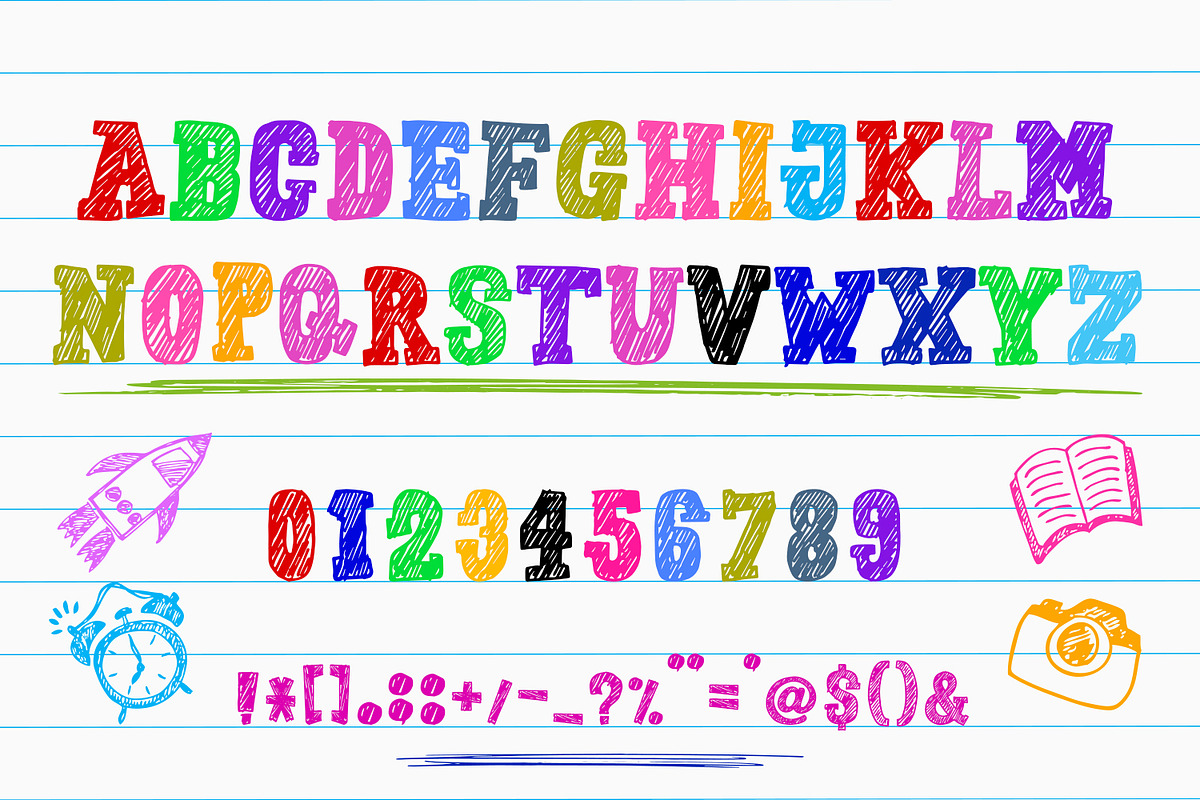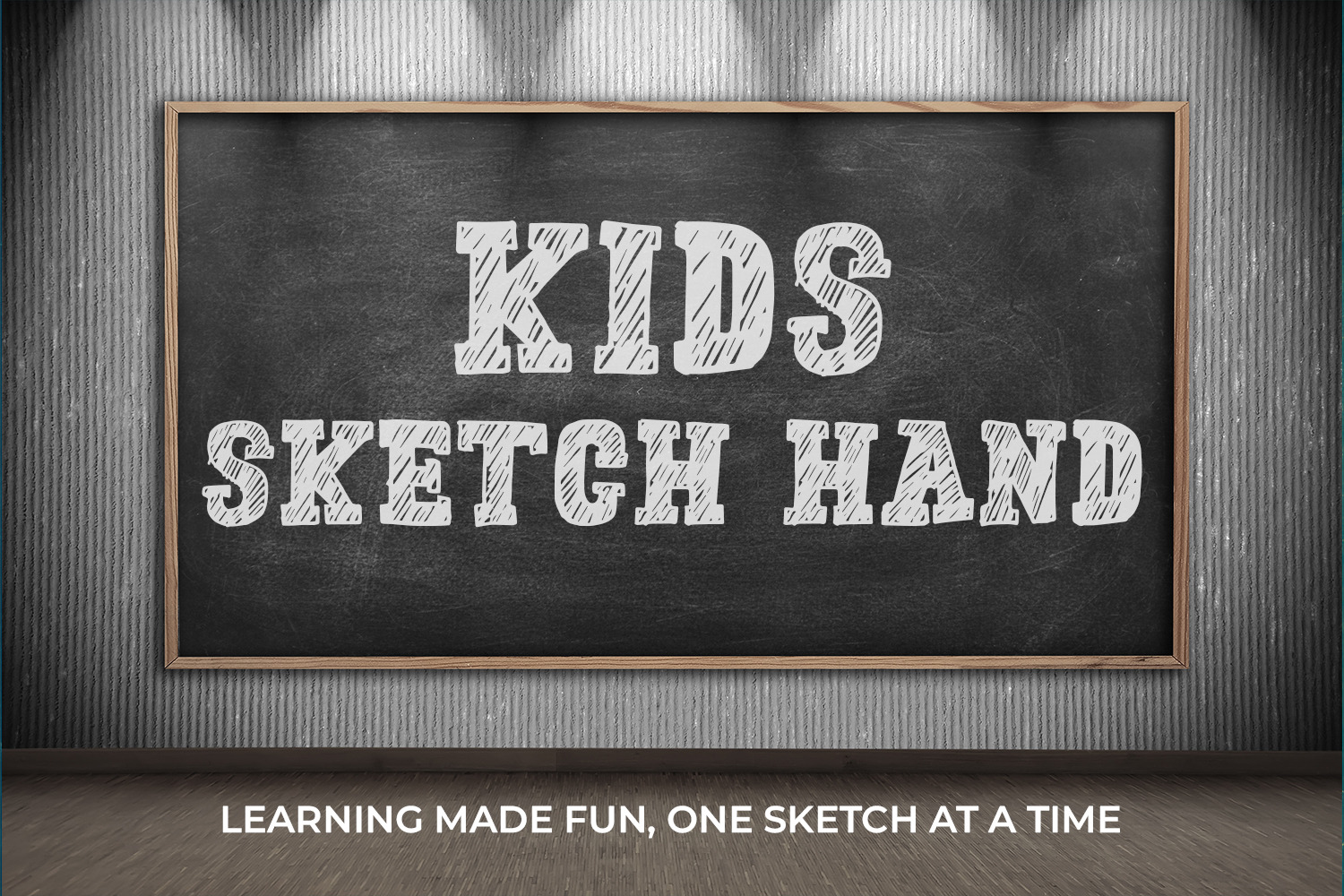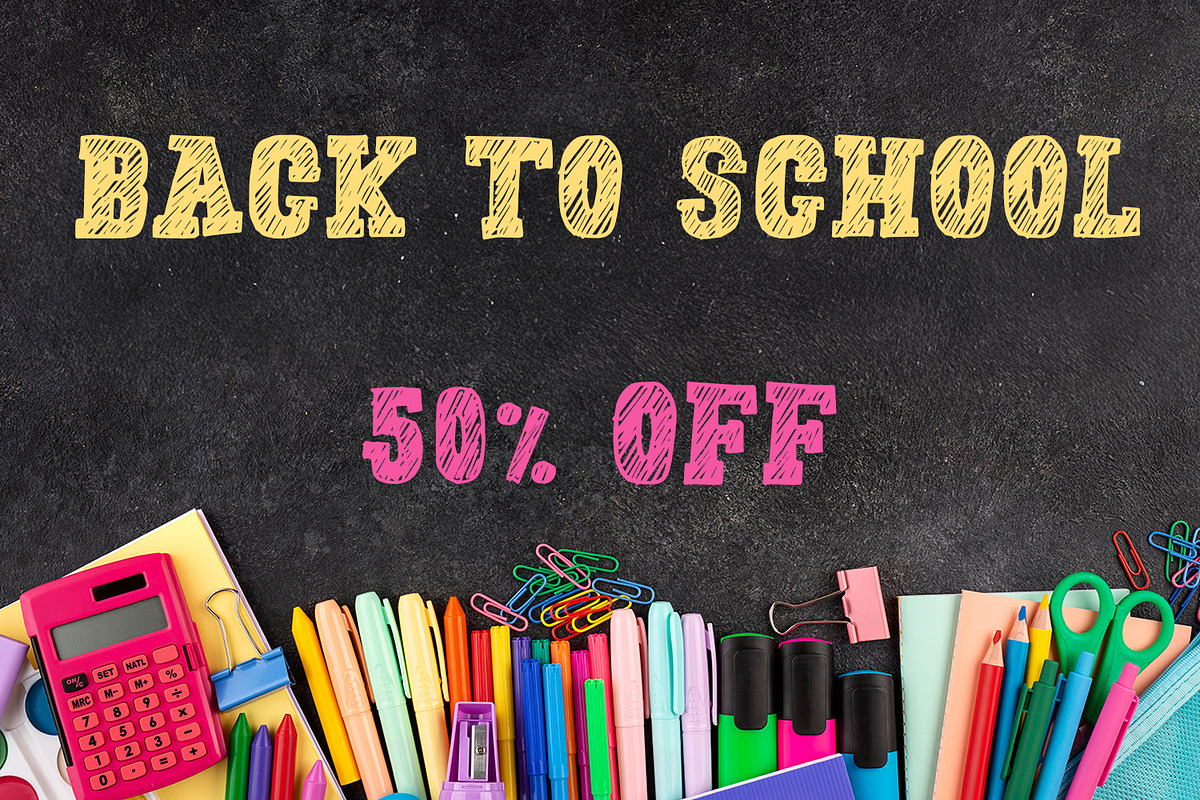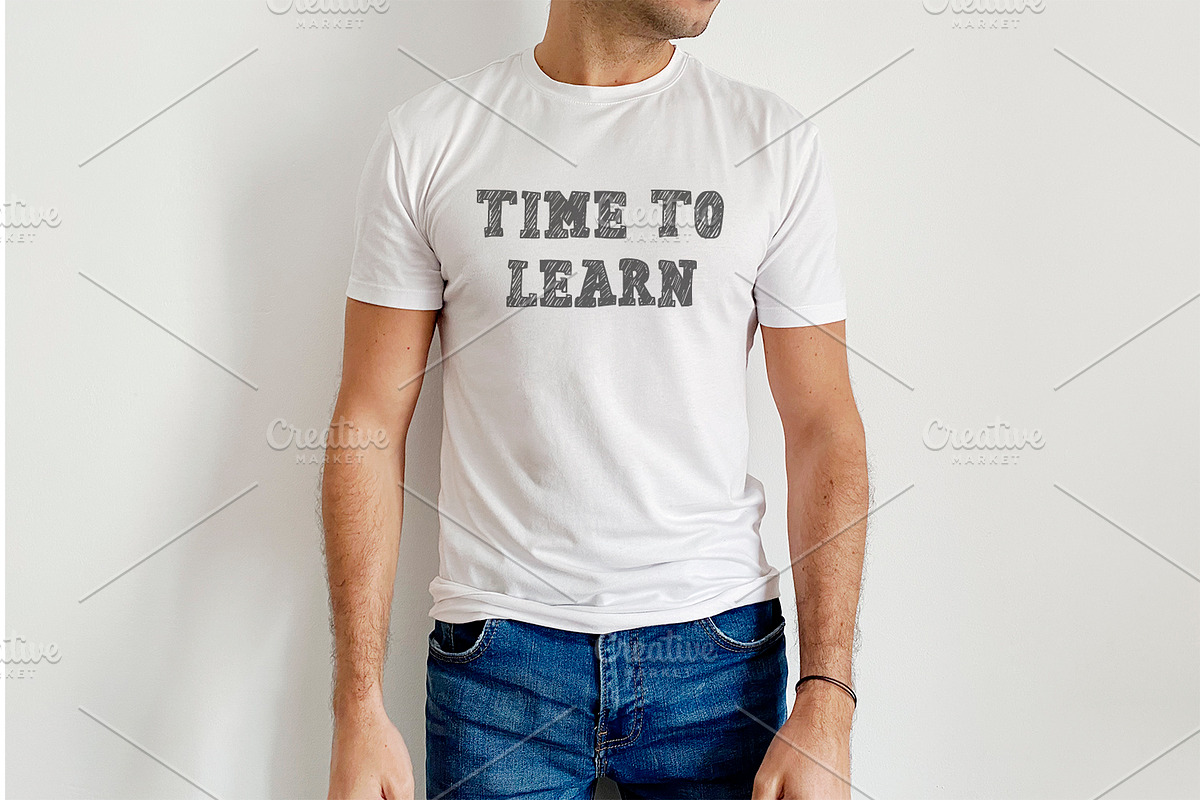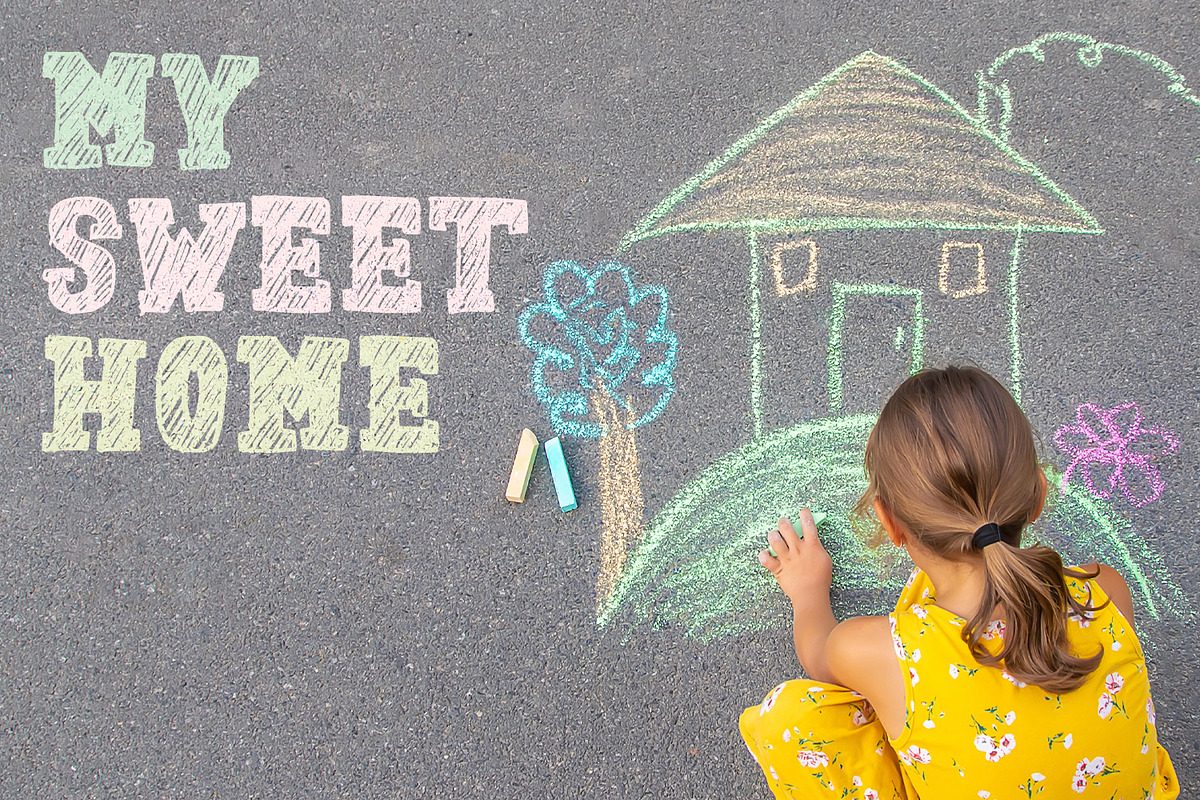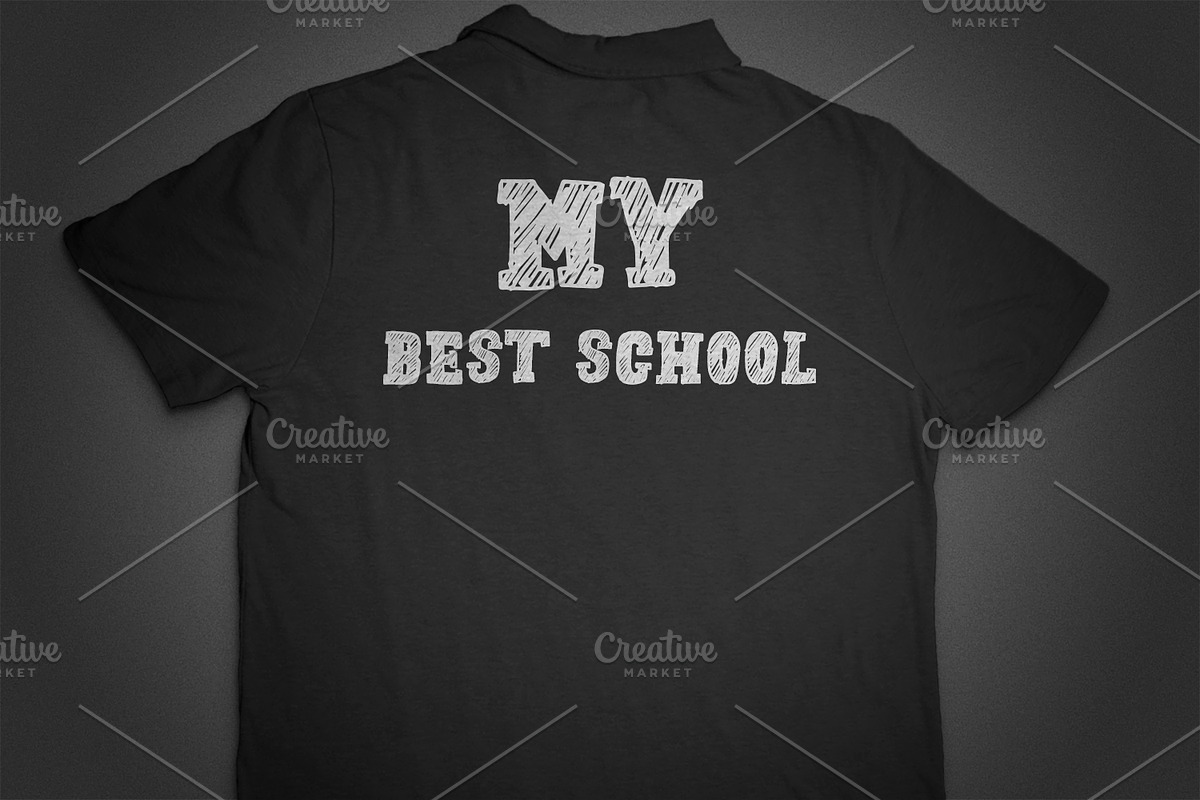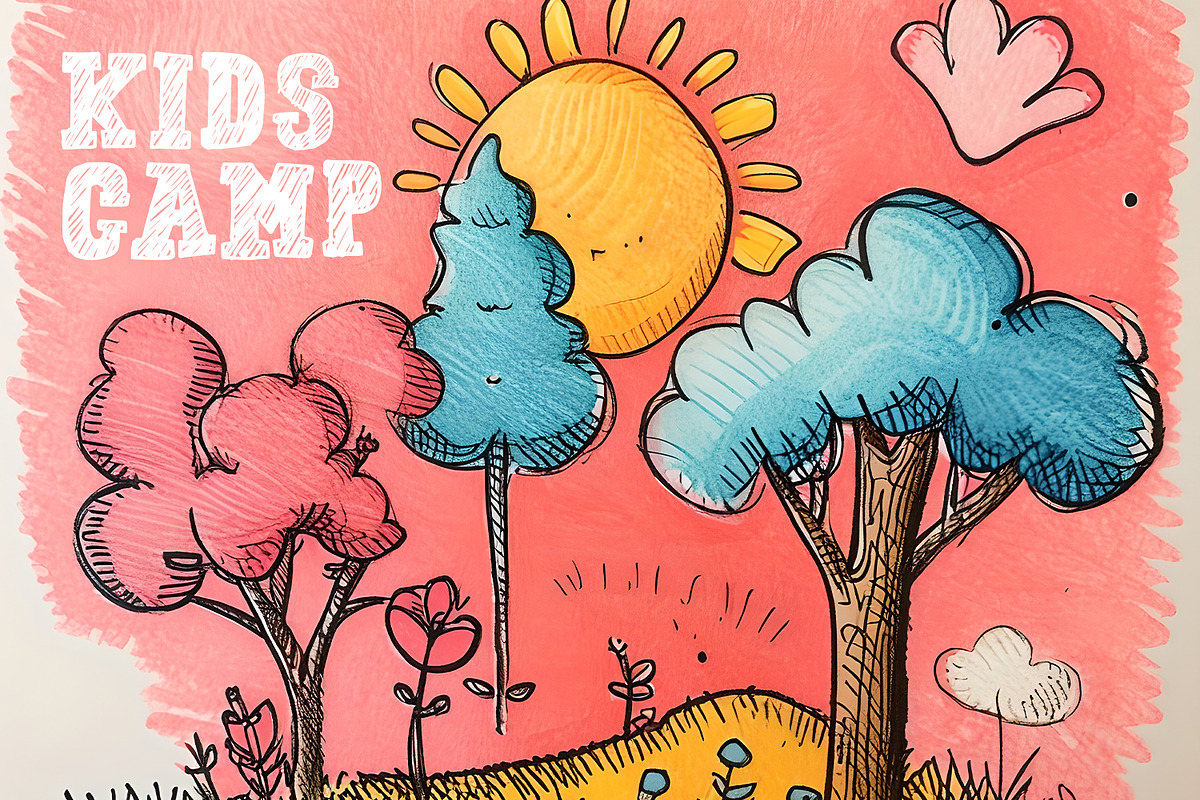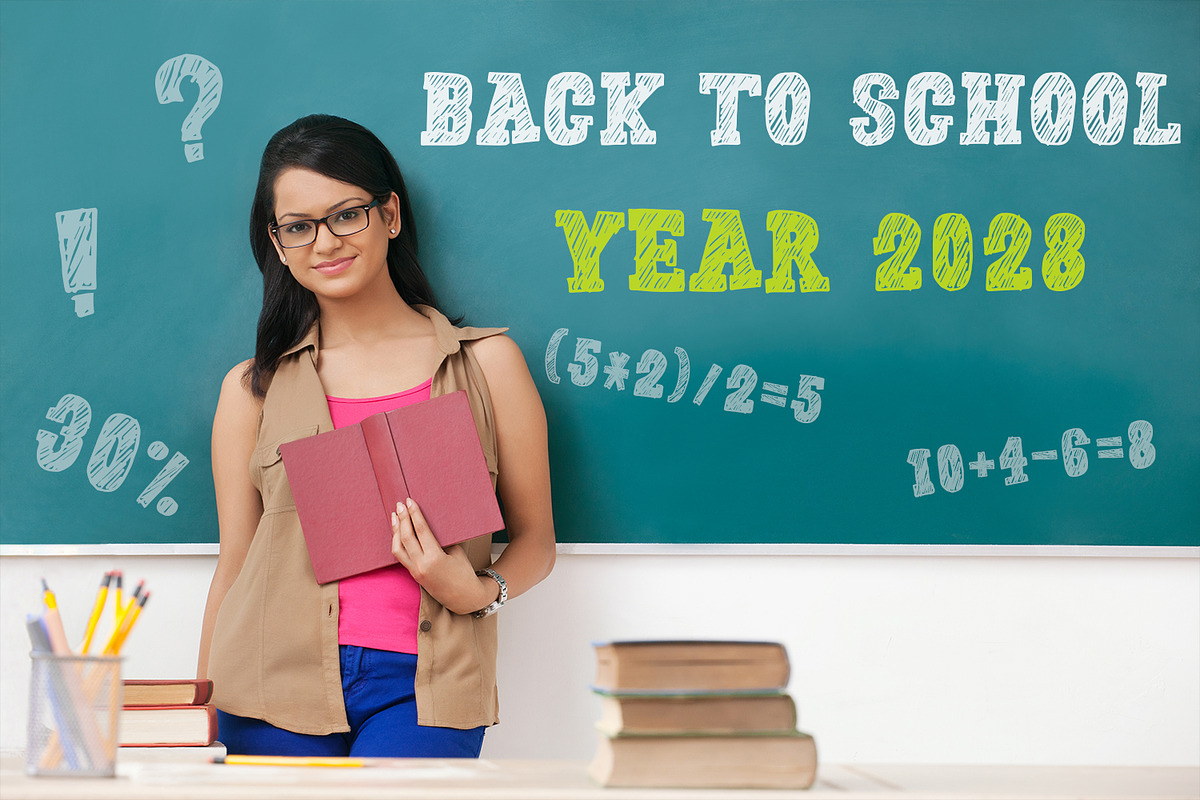
Kids Sketch Hand Font
A fun and colorful kids sketch hand drawn font set featuring a full alphabet, numbers, and symbols . This handwritten font style is perfect for children’s projects, school designs, educational materials, posters, branding, packaging, invitations, worksheets, and creative illustrations. The rough sketch texture and vibrant colors give a joyful, creative, and friendly look ideal for kid-focused designs, learning content, and playful typography.